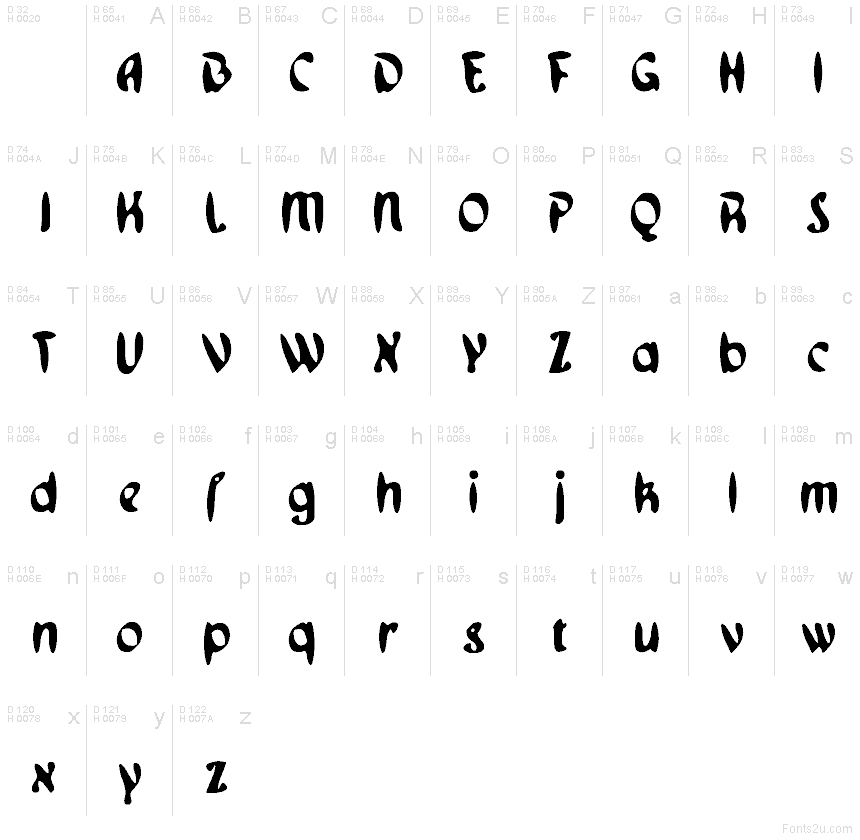
CS Marcus Drawn font by Craft Supply Co. is a free bold brush retro display font. Built within the CS Marcus family, it leans into inky, hand-drawn shapes—swollen strokes, soft blobbed edges, and quirky rhythm that feels like a vintage sign painted in one confident sweep. The letters swell and taper with a tactile, slightly wobbly energy that reads friendly and unmistakably human.
Using CS Marcus Drawn gives headlines a warm, throwback punch that shines on cafe menus, craft packaging, event posters, social promos, retro branding, and merch. Its chunky forms hold up at big sizes and stay legible in quick-glance contexts. Pair this free font with a clean, light sans for body copy, and keep tracking modest to preserve that juicy, brushy silhouette.